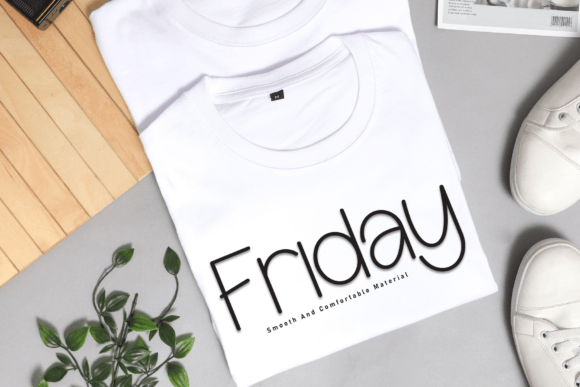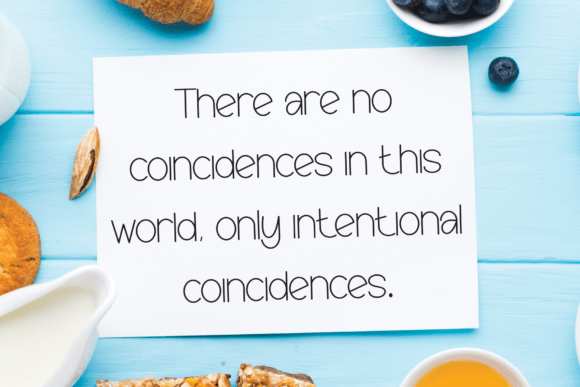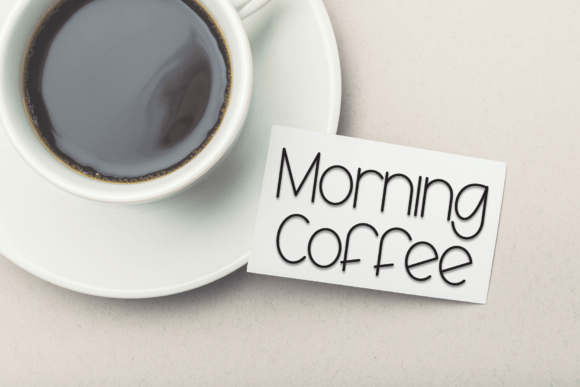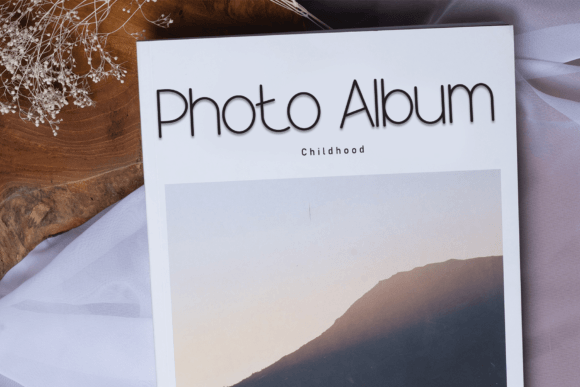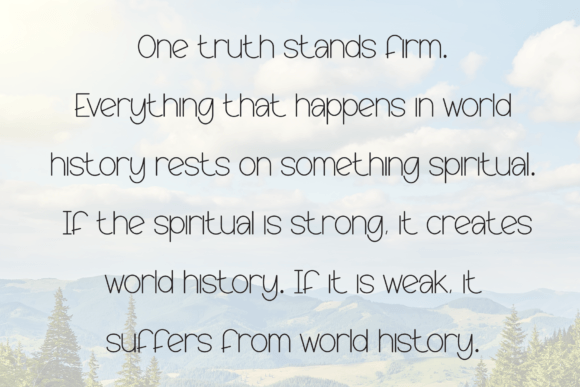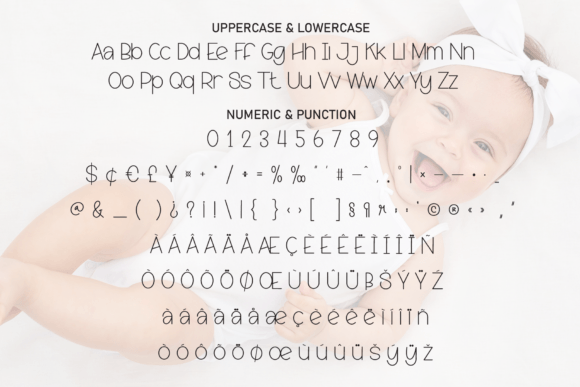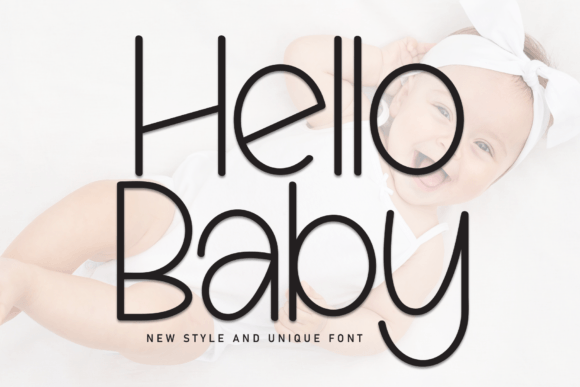
Hello Baby Font: A Charming Handwritten Font for Your Creative Projects
Hello Baby is a delightful handwritten font that embodies a playful and friendly style, making it perfect for designers and crafters looking to add a personal touch to their projects. This charming font features casual, rounded letters that exude a warm and inviting feel, ideal for creating engaging and approachable visual content.
The Characteristics of Hello Baby Font
Hello Baby Font is a unique and captivating typeface that boasts several distinct characteristics. Its handwritten nature gives it a personal and organic feel, reminiscent of handwritten notes and letters. The casual, rounded letters are smooth and flowing, creating a sense of warmth and friendliness. This font is perfect for projects that require a touch of whimsy and playfulness, such as:
- Children’s books and educational materials
- Invitations and party decorations
- Branding and packaging for lifestyle and wellness products
Why Choose Hello Baby Font?
With Hello Baby Font, you can add a unique and creative touch to your projects. Here are some reasons why designers and crafters love this font:
- Versatility: Hello Baby Font is suitable for a wide range of projects, from digital content to print materials.
- Ease of use: This font is easy to read and understand, making it perfect for body text and headings.
- Customization: Hello Baby Font comes with a range of variations, allowing you to experiment with different styles and effects.
- Uniqueness: This font stands out from more traditional typefaces, giving your projects a distinctive and memorable look.
Tips for Using Hello Baby Font Effectively
To get the most out of Hello Baby Font, follow these tips:
- Pair with complementary fonts: Combine Hello Baby Font with other fonts to create visual interest and hierarchy.
- Experiment with colors: Try out different color schemes to match the tone and mood of your project.
- Play with sizes: Use varying font sizes to create emphasis and draw attention to key elements.
- Add textures and effects: Enhance your design with textures, gradients, and other effects to give it a unique look.
Hello Baby Font in the World of Design
Hello Baby Font has become a popular choice among designers and crafters due to its versatility and charm. This font has been used in a variety of creative projects, from:
- Branding and advertising: Companies use Hello Baby Font to create friendly and approachable brand identities.
- Packaging and labeling: This font is used on product packaging and labels to add a personal touch.
- Digital content: Bloggers and social media influencers use Hello Baby Font to create engaging and shareable content.
Hello Baby Font is a charming handwritten font that offers a playful and friendly style, perfect for adding a personal touch to any project. With its casual, rounded letters and warm feel, this font is ideal for designers and crafters looking to create engaging and approachable visual content. Whether you’re working on a children’s book, a branding project, or a social media graphic, Hello Baby Font is a versatile and effective choice.